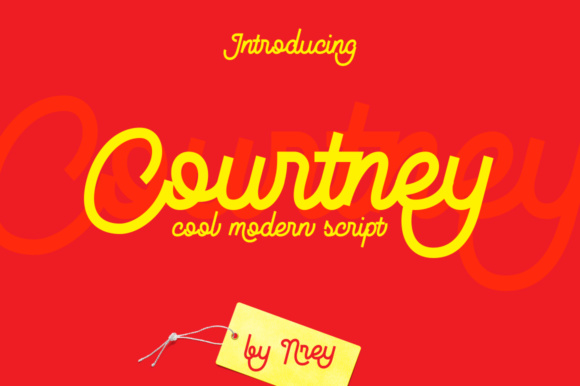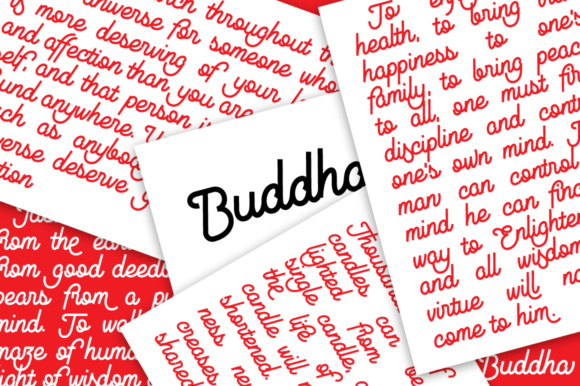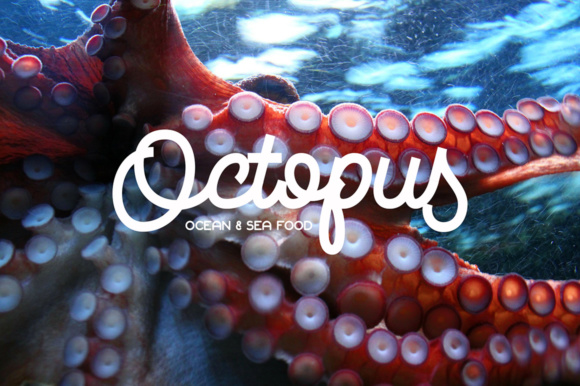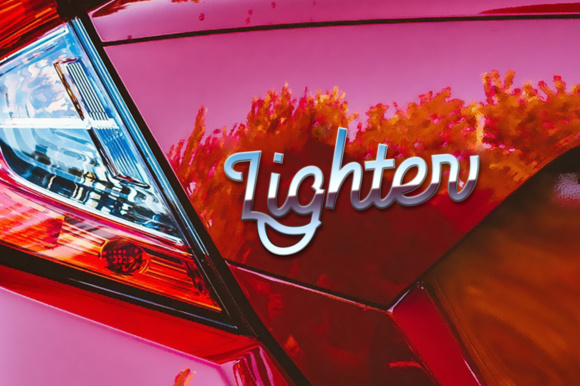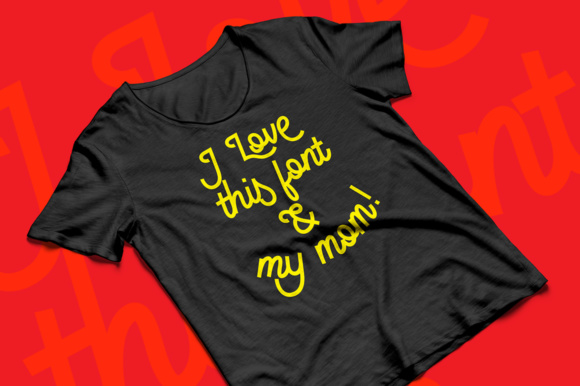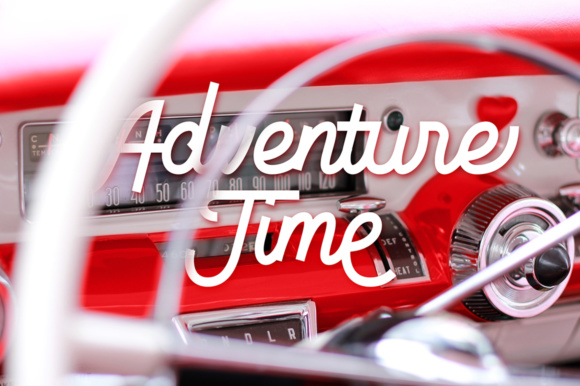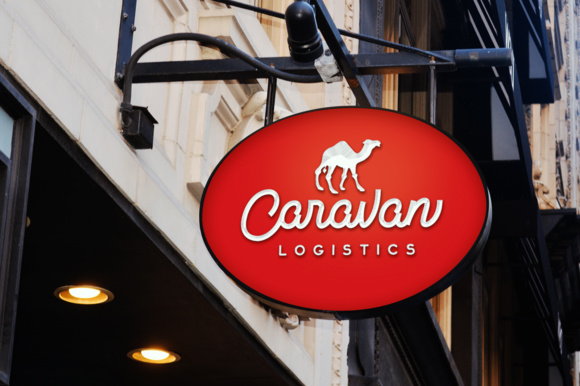
Courtney Font
About Courtney Font
Courtney is a cool and retro script font, perfect for headlines and logotype! This cursive style font has a monoline style with sharp edges, so it looks great in a wide range of projects that necessitate a stylized and refined construct.